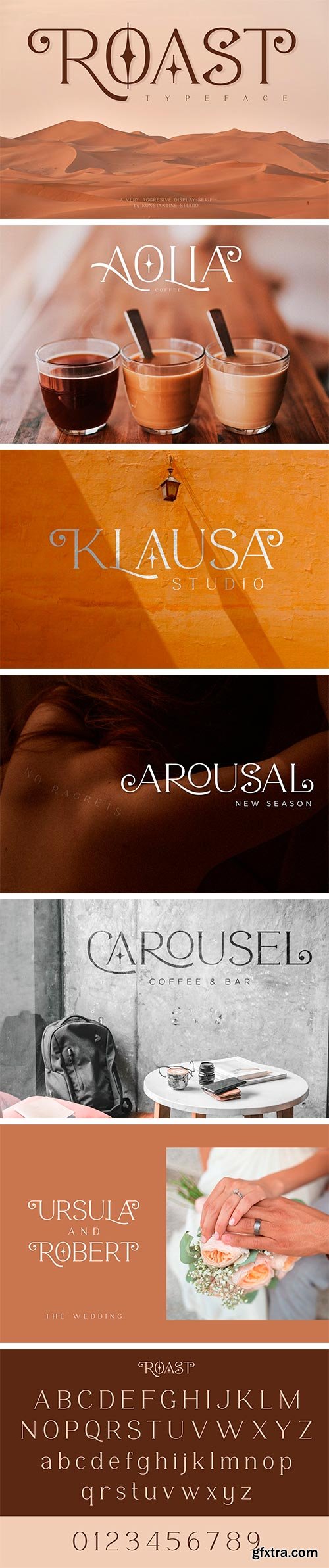
ROAST - Decorative Display Serif
You can be wild and bold in an elegant way. And serif typeface can be very wide and versatile without losing the characteristic. That's where the ROAST came from. Elevate your elegant vibes with pushing the style in edgy way instantly with this font.